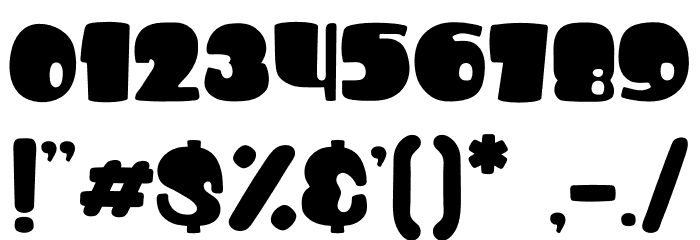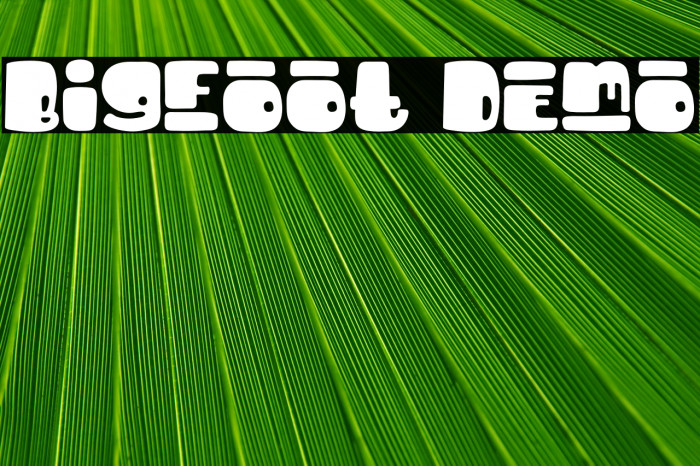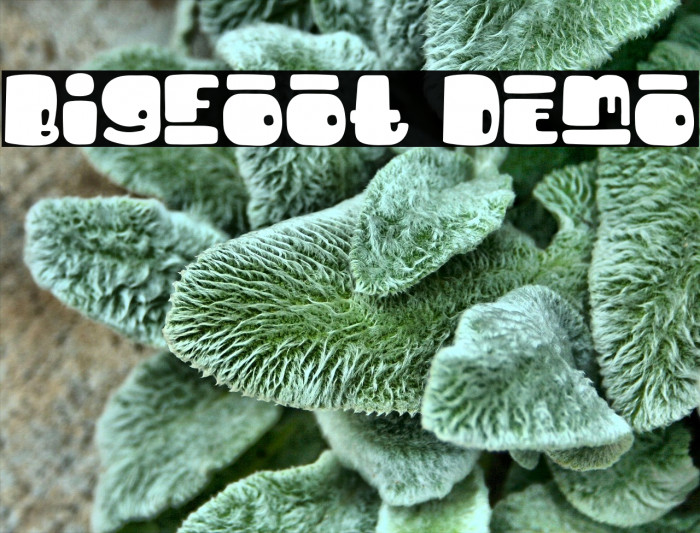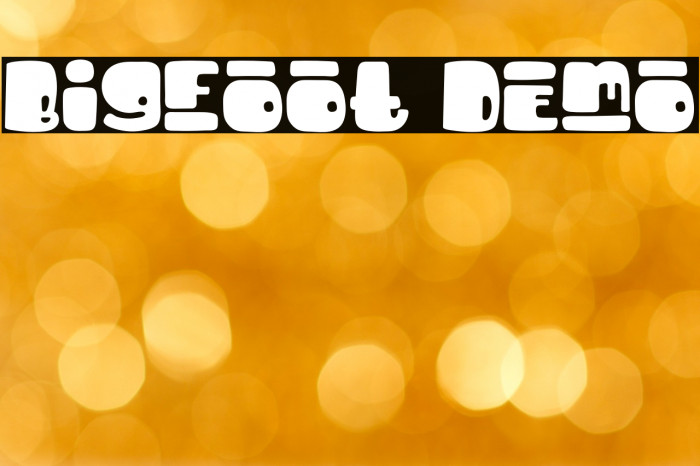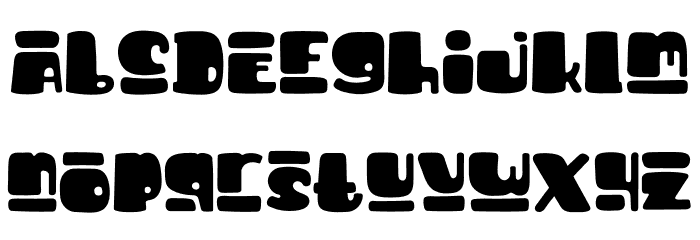
Bigfoot Demo Font
Bigfoot Demo Description
This font features a bold and playful design with thick, rounded characters that give it a unique and eye-catching appearance. The letters are heavily weighted, creating a sense of fun and whimsy, making it ideal for creative and informal projects. The characters have a consistent thickness, contributing to a cohesive and uniform look. The font includes both uppercase and lowercase letters, numbers, and a variety of special characters, ensuring versatility in its application. Its distinct style makes it stand out, perfect for projects that require a bold statement.
| Overall Style | Playful, Bold, Whimsical |
| Use Case | Headlines, Posters, Branding |
| Proposed Projects | Ideal for children's books, playful branding, posters, and any project needing a fun, bold statement. |